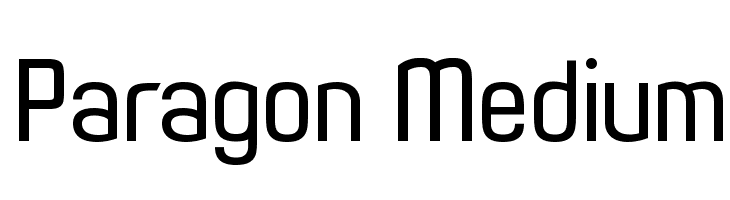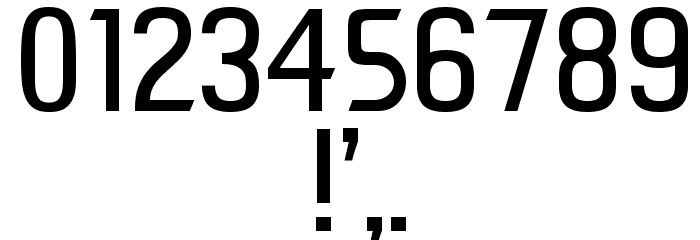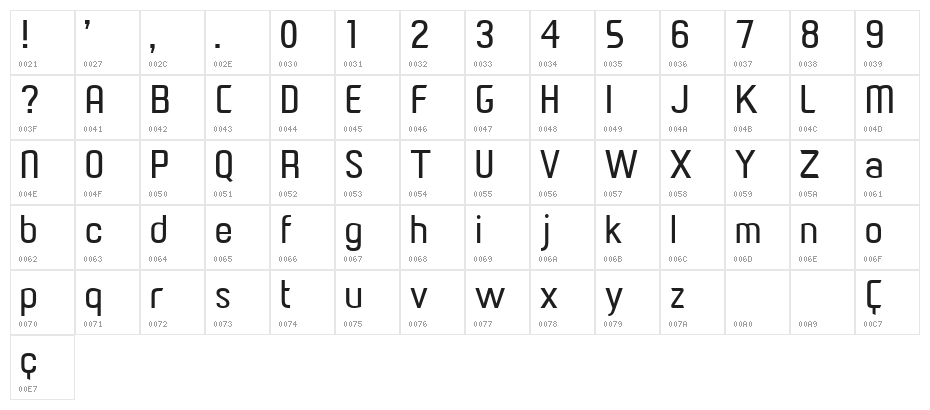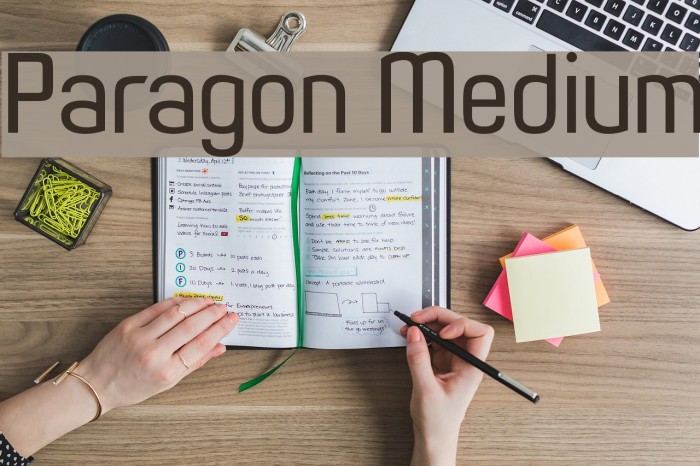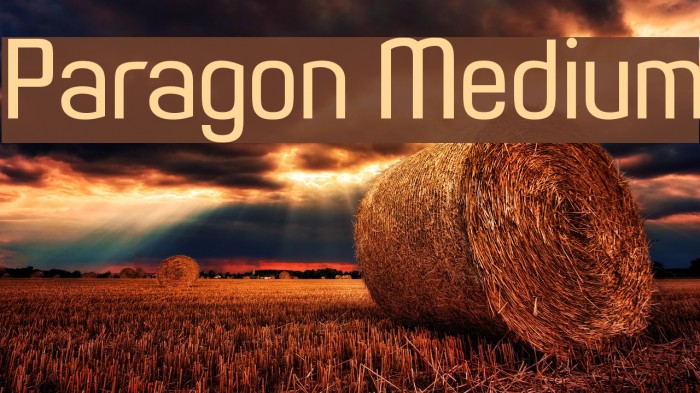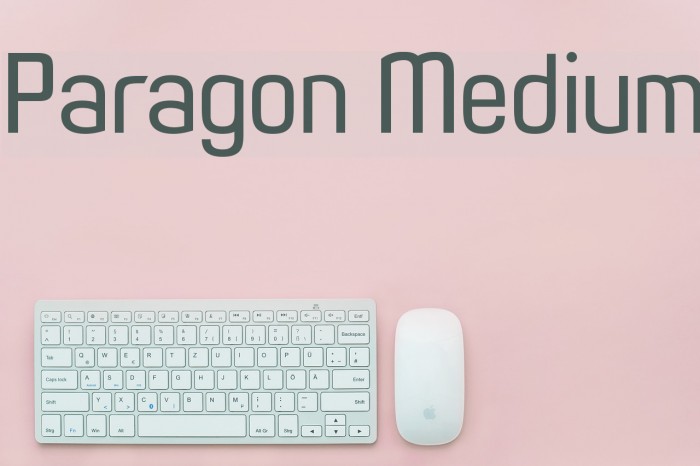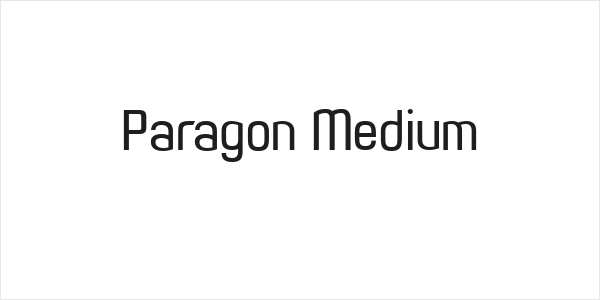
Paragon Medium Font
Paragon Medium Description
This font features a clean, modern aesthetic with rounded edges and a geometric structure. The uppercase letters are uniform in height, providing a cohesive look, while the lowercase letters maintain a consistent baseline, enhancing readability. The numerals are distinct and easy to differentiate, making them suitable for various applications. The special characters are well-integrated, maintaining the overall style of the font. Its balanced proportions and smooth curves give it a contemporary feel, making it versatile for both digital and print media.